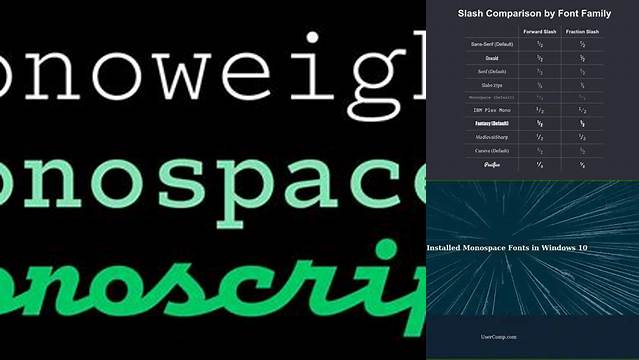
Monospace Fonts: Enhance Your Coding Experience
Introduction to Monospace Fonts in Programming
Hey everyone! Ever wonder why the text in your code editor looks the way it does? It's all thanks to monospace fonts! These fonts are a programmer's best friend, and today, we're diving deep into what makes them so crucial for coding. If you're new to programming or just curious about the tools of the trade, you're in the right place. We will explore why these fonts are essential for writing clean, readable, and error-free code. Monospace fonts, unlike their proportional counterparts, assign the same amount of horizontal space to each character. This consistency is the secret sauce that makes your code easy to read and debug. Think of it like this: each letter takes up the same width, so everything lines up perfectly. This is a stark contrast to proportional fonts, where a 'W' takes up more space than an 'i'. Let's break down why this seemingly small detail is a game-changer for programmers. The uniformity in monospace fonts allows for easy vertical alignment of code elements. Think about aligning variable declarations, comments, and operators. With a monospace font, these elements neatly stack on top of each other, making it much easier to scan your code and spot potential issues. This is especially critical when you're dealing with complex codebases with hundreds or thousands of lines of code. Using a monospace font is practically a must if you want to maintain a high level of readability and maintainability. Furthermore, the consistent spacing in monospace fonts makes it super easy to visually parse code blocks. Indentation, which is critical for readability and understanding code structure, becomes immediately apparent. You can quickly see which lines of code belong to which function, loop, or conditional statement. The visual cues provided by monospace fonts help you understand the logic and flow of your program at a glance, so using this font is super important. This level of visual organization is difficult to achieve with proportional fonts, where inconsistent character widths can make it difficult to distinguish between different code blocks. Understanding the benefits of monospace fonts is the first step in appreciating their value in programming. Throughout this article, we will explore the specific advantages and how to choose the best monospace fonts for your coding environment. So, stick around, and let’s get coding!
The Advantages of Using Monospace Fonts in Code Editors
Let's get into why monospace fonts are so awesome for coding! Firstly, the consistent character width in monospace fonts is a huge win for code readability. Imagine trying to read code where the 'i' is tiny and the 'W' is massive. It's a mess, right? Monospace fonts solve this by making every character the same width. This makes it super easy to visually scan your code, quickly identify keywords, variables, and operators, and catch any typos or syntax errors. Then there’s code alignment. When you use monospace fonts, you can easily align your code. This is because each character takes up the same space. Variable declarations, comments, and operators line up perfectly, making your code look neat and organized. This is especially helpful when you're working on large projects with multiple files. Code clarity is very important, and monospace fonts help with that a lot. Consider indentation. Indentation is critical for readability, and monospace fonts make it immediately apparent. This makes it easy to spot which lines of code belong to which function, loop, or conditional statement. The visual cues provided by monospace fonts help you understand the logic and flow of your program at a glance. With monospace fonts, you can easily see how different parts of your code relate to each other. This is important because when you can easily follow the structure of your code, it helps you spot any errors that may have been created while coding. In addition, monospace fonts are great for version control and collaboration. Because the characters are the same width, it's easier to spot differences between code versions. When collaborating with others, this helps you spot changes that were made by others and helps you fix them, making it easier to merge changes and resolve conflicts. Monospace fonts make it easier to identify the lines that have been changed, making it easier to track changes and understand the impact of each change. Finally, monospace fonts enhance the overall coding experience. The uniform spacing reduces visual clutter and improves focus. The enhanced readability and organization can significantly improve your productivity and reduce the frustration of debugging. All in all, the advantages of monospace fonts go far beyond the simple aesthetics. Using them can transform the way you write, read, and debug your code. You’ll be faster, more efficient, and you'll probably enjoy the process more too.
Top Monospace Fonts for Programmers: A Comparison
Alright, let's talk about some of the best monospace fonts out there for programmers! Choosing the right font can make a big difference in your coding experience. Here’s a rundown of some top choices and what makes them great. First up, we have Consolas. This is one of the most popular fonts, and for good reason! It comes bundled with Microsoft products, and it’s known for its great readability and clear distinction between similar characters. It is especially good at distinguishing between 'l' (lowercase L), '1' (the number one), and 'I' (uppercase i), which can be a real pain with some other fonts. It's a solid all-rounder, perfect for beginners and experienced coders alike. Then we have Fira Code. This font is a favorite among modern programmers because it supports ligatures. Ligatures are special characters that combine two or more characters into one. For example, the characters '!=' can be combined to form a single ≠symbol. This feature enhances code readability by creating a cleaner, more streamlined visual experience. Fira Code is particularly good for those who love a clean, modern aesthetic. Next, we have Source Code Pro. Developed by Adobe, this font is known for its generous x-height (the height of lowercase letters) and open forms, making it very readable even at small sizes. It also has excellent kerning (the spacing between characters), which is helpful for overall readability. If you spend a lot of time staring at your screen, this font might be the perfect choice. JetBrains Mono is another excellent choice. It was designed specifically for coding and offers a high degree of legibility, even on low-resolution displays. It also supports ligatures, like Fira Code, and is a great option if you use JetBrains IDEs like IntelliJ or PyCharm. Finally, we have Monaco. This is a classic monospace font that comes with macOS. It's known for its simplicity and clarity, and is a great choice if you prefer a clean, no-frills look. It's not as feature-rich as some of the others, but it’s a reliable choice for those who prioritize simplicity. The best font for you will depend on your personal preferences and your specific coding environment. Experiment with a few different fonts to see which one you like best. Consider the font's readability, support for ligatures, and overall aesthetic. A good font should make your code easier to read, less likely to cause eye strain, and more enjoyable to work with.
Common Mistakes to Avoid When Choosing Monospace Fonts
Alright, let's talk about some common mistakes to steer clear of when choosing monospace fonts for programming. These mistakes can lead to frustration and make your code harder to read, so it’s important to be aware of them! First, be careful about choosing a font that's too small. While you might think a smaller font will let you fit more code on the screen, it can lead to eye strain and make it hard to distinguish between characters, which leads to mistakes in your code. Generally, aim for a font size of at least 12 points, and adjust as needed based on your screen size and viewing distance. Another mistake is using a font that doesn't clearly differentiate between similar-looking characters. Some fonts make it hard to tell the difference between 'l' (lowercase L), '1' (the number one), and 'I' (uppercase i), or between '0' (zero) and 'O' (uppercase O). When choosing a font, make sure to test it with a sample of your code to check if the similar characters are distinguishable. Then, make sure you aren't choosing a font that lacks sufficient contrast. If the font is too light or the contrast between the text and the background is too low, it can cause eye strain. Make sure your font color contrasts well with your editor's background color. Dark text on a light background or light text on a dark background is usually best. Furthermore, avoid picking a font that has poor kerning (the spacing between characters). Poor kerning can make the text look cramped or uneven, especially with certain character combinations. Choose a font that has been specifically designed for programming and has good kerning, to ensure your code looks clean and clear. One more mistake is to pick a font that doesn’t support ligatures, if you want them. Some programmers love ligatures (like Fira Code), which combine certain character pairs into a single glyph (e.g., != becomes ≠). If you like ligatures, make sure the font you choose supports them and that your code editor is configured to enable them. Lastly, don't be afraid to experiment. The best font for you is the one that you find most comfortable and that helps you read your code easily. Don't be afraid to try different fonts and font sizes to find what works best. Consider all the elements to make your coding experience smooth and efficient. Avoiding these common mistakes will help you find the perfect monospace font to boost your productivity and reduce eye strain. Happy coding!
Conclusion: Choosing the Right Monospace Font for You
So, to wrap things up, finding the right monospace font for your programming needs is all about finding the right fit for your own personal style and coding environment. As we’ve seen, there are tons of options available, each with its unique strengths. To recap, the key takeaways are that a good monospace font will improve readability, which is really important. The right font will also help with code alignment, making your code easier to read and debug. When you're trying to find the right font, readability is the most important thing. Then consider the font's overall appearance, features, and its ability to enhance your productivity and reduce eye strain. Keep in mind the specific features that are most important to you, whether it's ligatures, clear character differentiation, or a clean, modern aesthetic. Experiment with different fonts and sizes until you find something that feels right. The best font is one that you find comfortable and easy to read. Don't be afraid to tweak the font size, line spacing, or other settings to customize your coding experience. Ultimately, the goal is to create a coding environment that's as enjoyable and efficient as possible. By making the right font choice, you can significantly improve your productivity and reduce eye strain. Remember, the right monospace font can transform your coding experience, making it easier, more enjoyable, and less frustrating. So, go out there, try some different fonts, and find the one that makes your code shine! Happy coding, everyone!